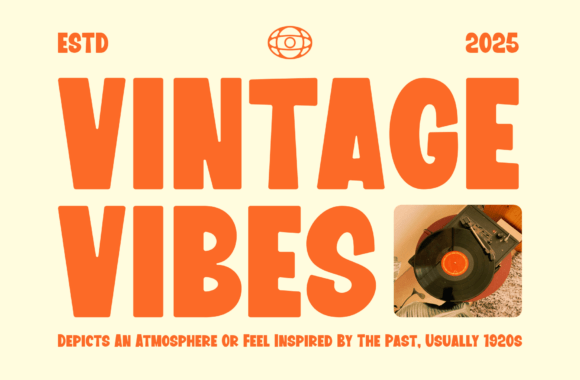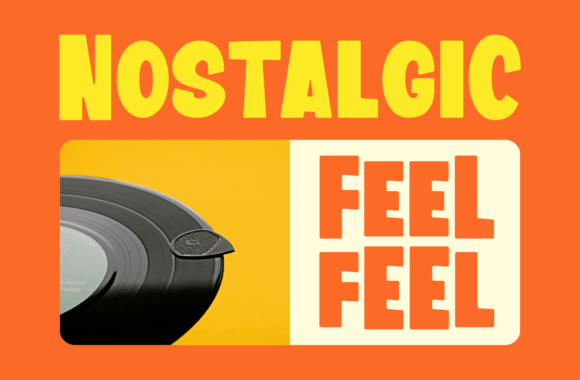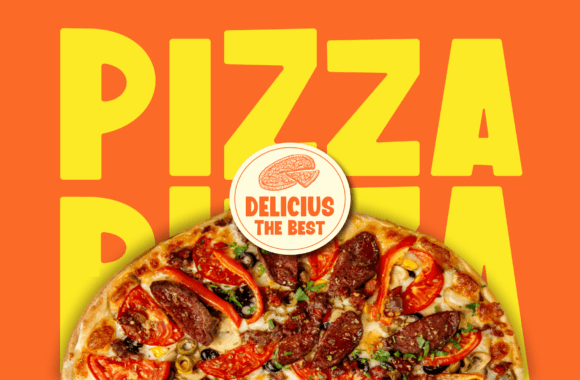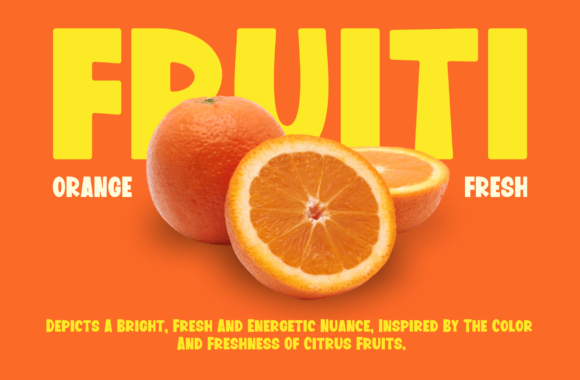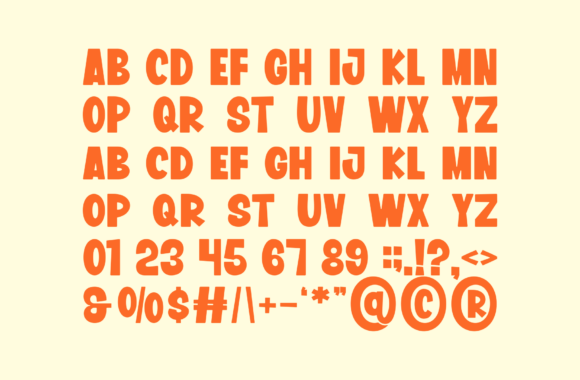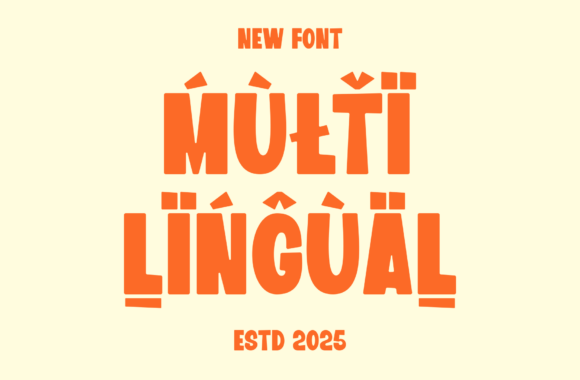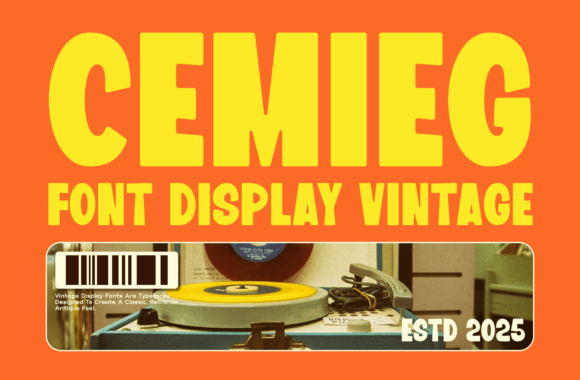
Discover the Timeless Charm of Cemieg Font: A Vintage Display Typeface
In the world of typography, few fonts evoke the essence of antique design as effectively as the Cemieg font. This vintage display typeface is engineered to create a classic and reliable feel, making it an ideal choice for designers and crafters seeking to add a touch of nostalgia to their projects. With its massive, solid letterforms, Cemieg font is built for impact, perfect for retro branding, heritage logos, and high-visibility signage.
The Inspiration Behind Cemieg Font
The Cemieg font draws inspiration from the golden era of mid-century advertising and classic vinyl record sleeves. During this period, typography played a crucial role in shaping brand identities and capturing the attention of consumers. The Cemieg font pays homage to this era, with its bold and sturdy letterforms that exude a sense of confidence and authority. When you integrate the Cemieg font into your layout, you instantly add a sense of historical weight and established credibility.
Versatility and Applications
One of the standout features of the Cemieg font is its versatility. It works exceptionally well for a wide range of applications, from urban café logos and automotive branding to large-format posters and cinematic titles. Whether you’re building a brand identity for a modern-retro shop or designing a title for a film project, the Cemieg font provides the monumental structure and antique charm you need to make a lasting impression.
Pairing Cemieg Font with Texture and Color
To unlock the full vintage potential of the Cemieg font, consider pairing it with grainy textures and muted earth tones. This combination creates an authentic, aged look that adds depth and character to your design. The rough texture and earthy colors work in harmony with the bold letterforms of the Cemieg font, transporting your audience to a bygone era of classic design and sophistication.
Why Choose Cemieg Font?
So, why choose the Cemieg font for your next project? Here are just a few compelling reasons:
• Timeless appeal: The Cemieg font has a timeless quality that transcends fleeting design trends.
• High-impact letterforms: The massive, solid letterforms of the Cemieg font are designed to grab attention and make a lasting impression.
• Versatility: The Cemieg font is suitable for a wide range of applications, from branding and advertising to film and packaging.
• Authentic vintage look: With its sturdy letterforms and classic design, the Cemieg font provides an authentic vintage look that’s hard to replicate with modern fonts.
Tips for Using Cemieg Font Effectively
To get the most out of the Cemieg font, here are a few tips to keep in mind:
• Use it sparingly: The Cemieg font is a bold and attention-grabbing font, so use it sparingly to avoid overwhelming your audience.
• Experiment with texture and color: Don’t be afraid to experiment with different textures and colors to add depth and character to your design.
• Pair it with complementary fonts: Consider pairing the Cemieg font with complementary fonts to create visual interest and hierarchy.
In conclusion, the Cemieg font is a powerful and versatile typeface that offers a unique blend of vintage charm and modern functionality. With its massive, solid letterforms and timeless appeal, it’s the perfect choice for designers and crafters seeking to add a touch of nostalgia to their projects. Whether you’re building a brand identity, designing a title, or creating a poster, the Cemieg font provides the monumental structure and antique charm you need to make a lasting impression.